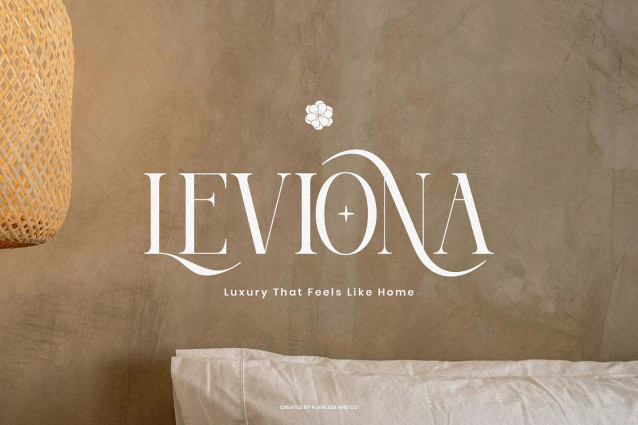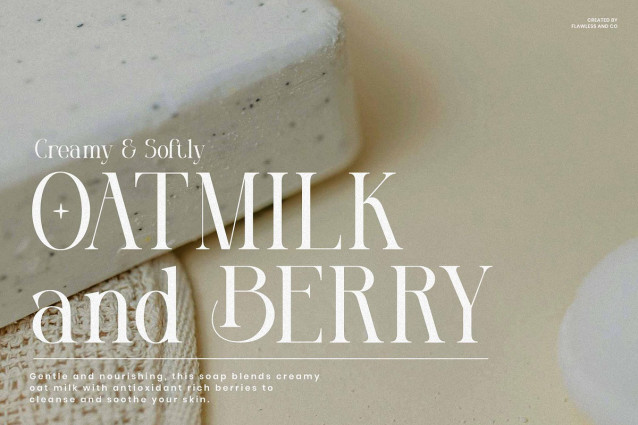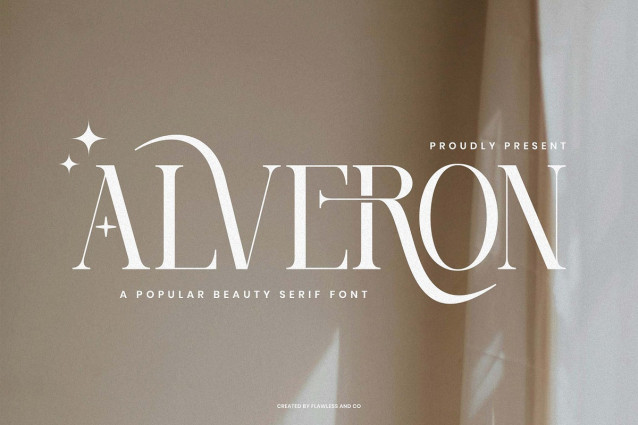
Alveron Font
Alveron Font — Modern Classy Serif Alveron a modern serif typeface designed to bring elegance, sophistication, and confidence to your designs. With its refined contrast, sharp serifs, and graceful curves, this font strikes the perfect balance between classic beauty and contemporary style. Crafted with versatility in mind, this font is perfect for branding, editorial design, packaging, logo design, and wedding invitations. Its stylish alternates and elegant ligatures allow for endless creative combinations that will elevate any visual presentation.